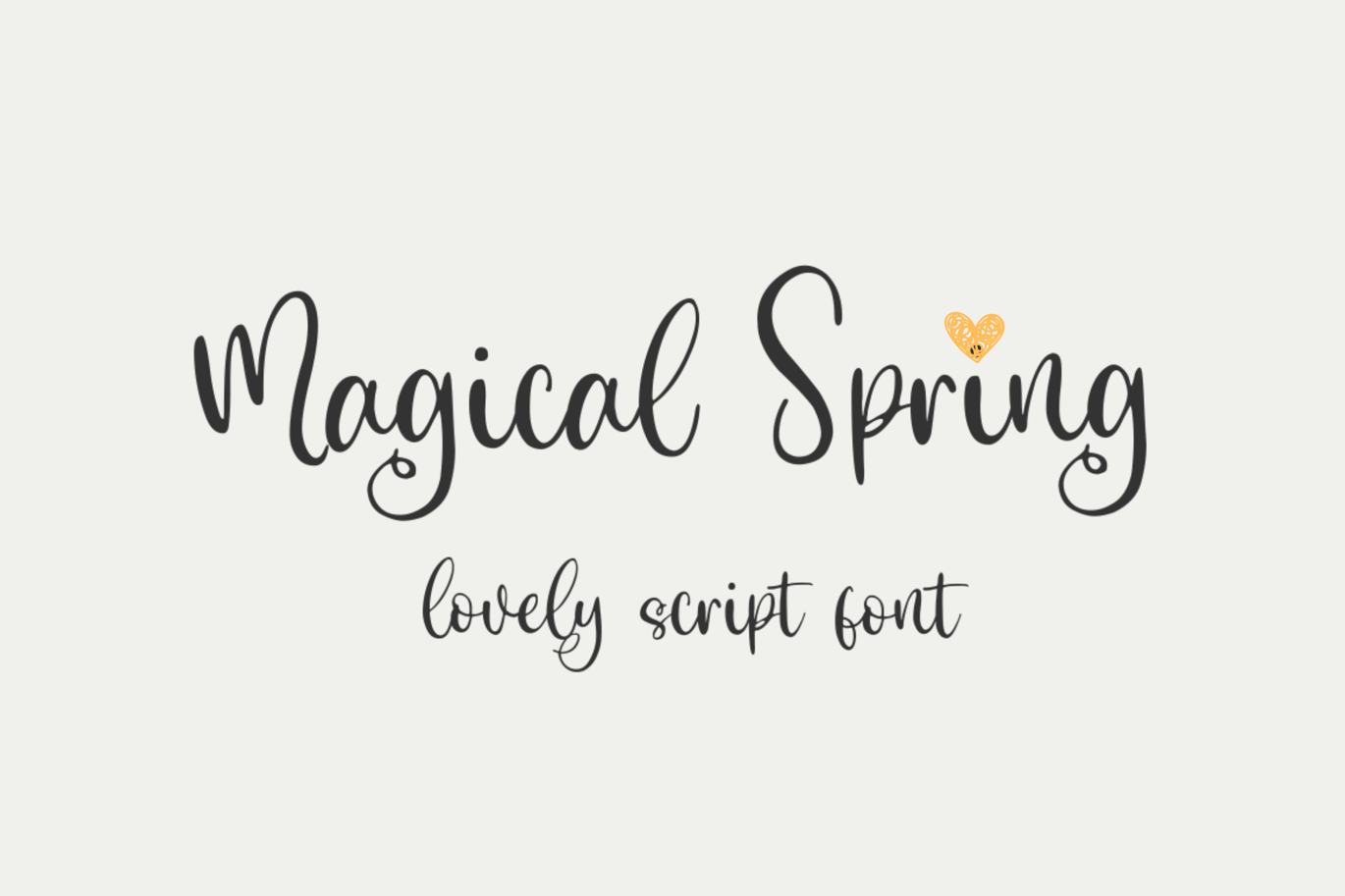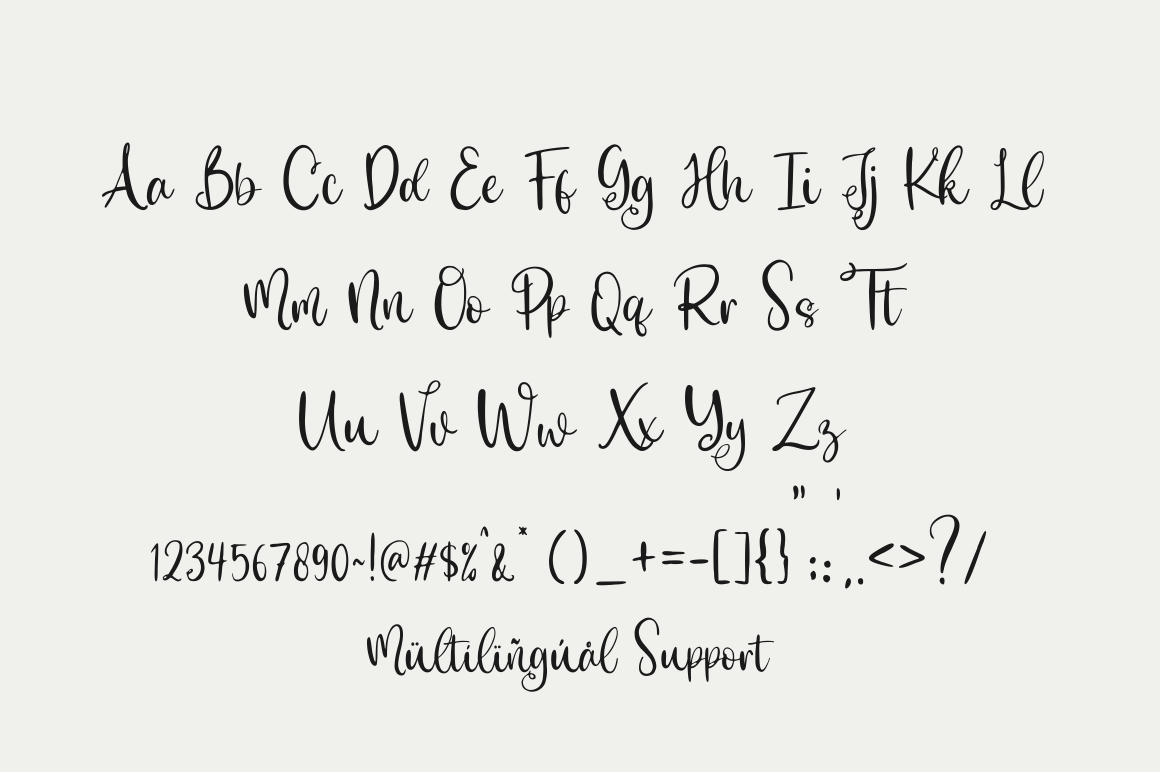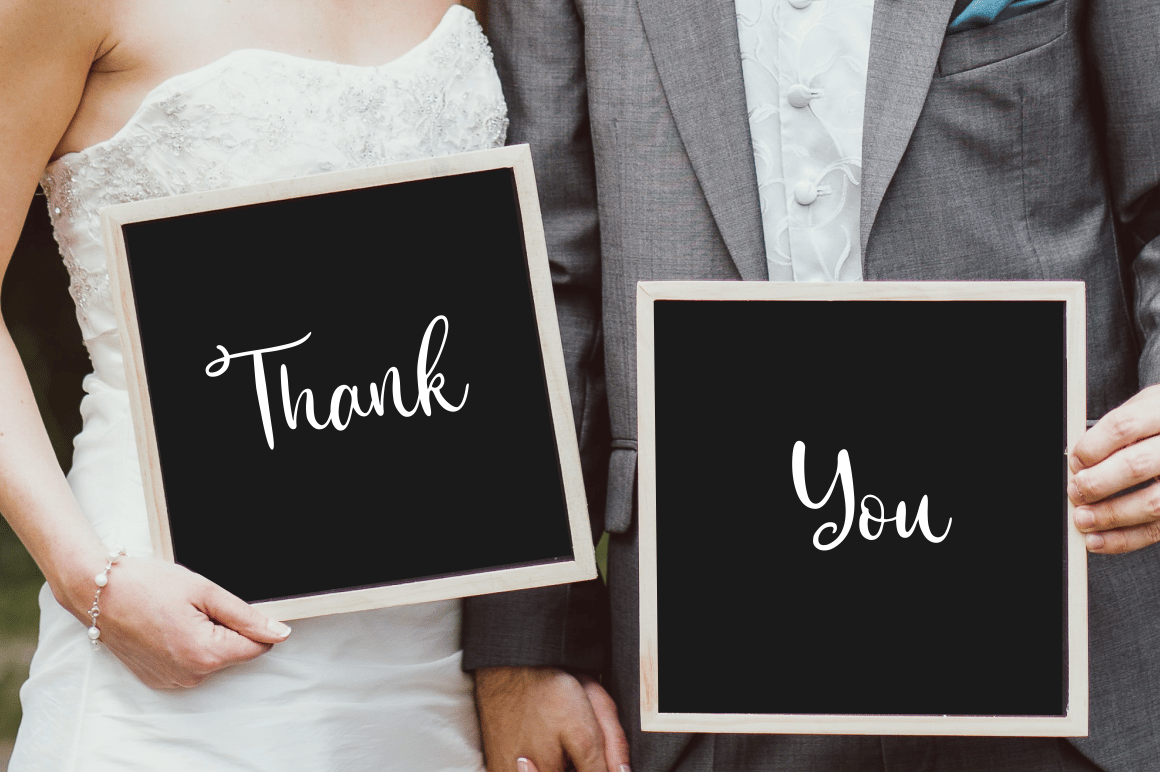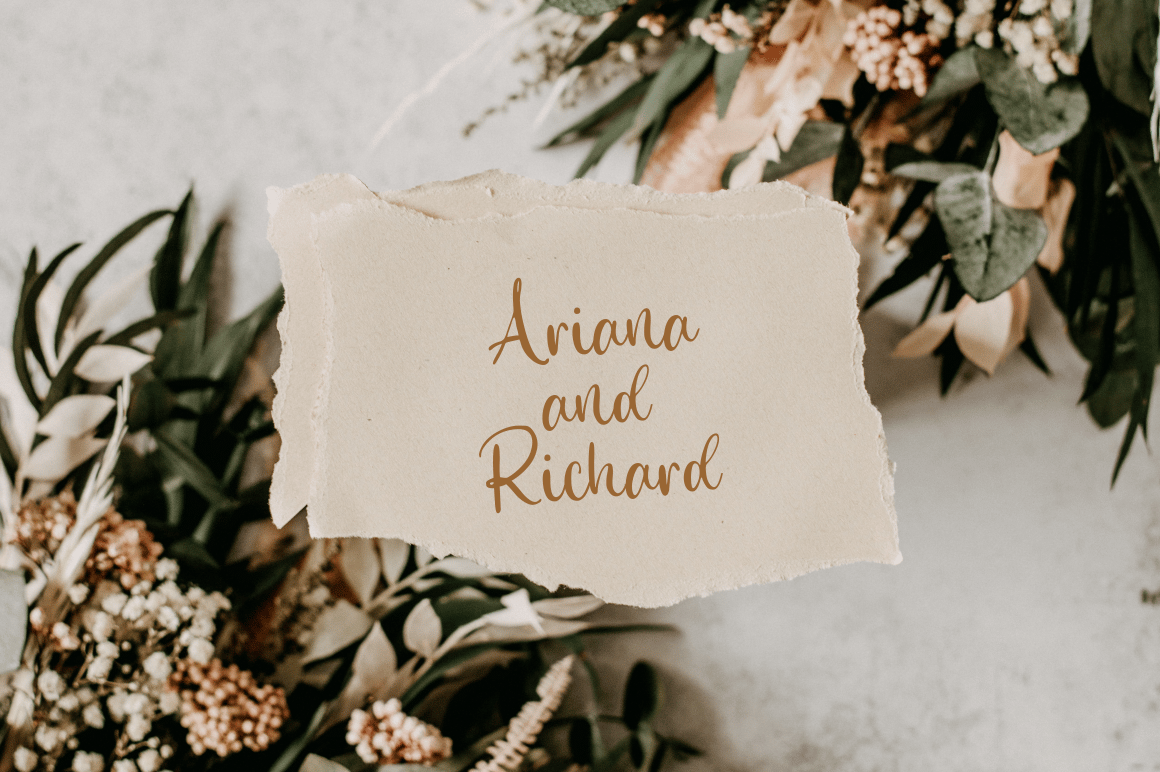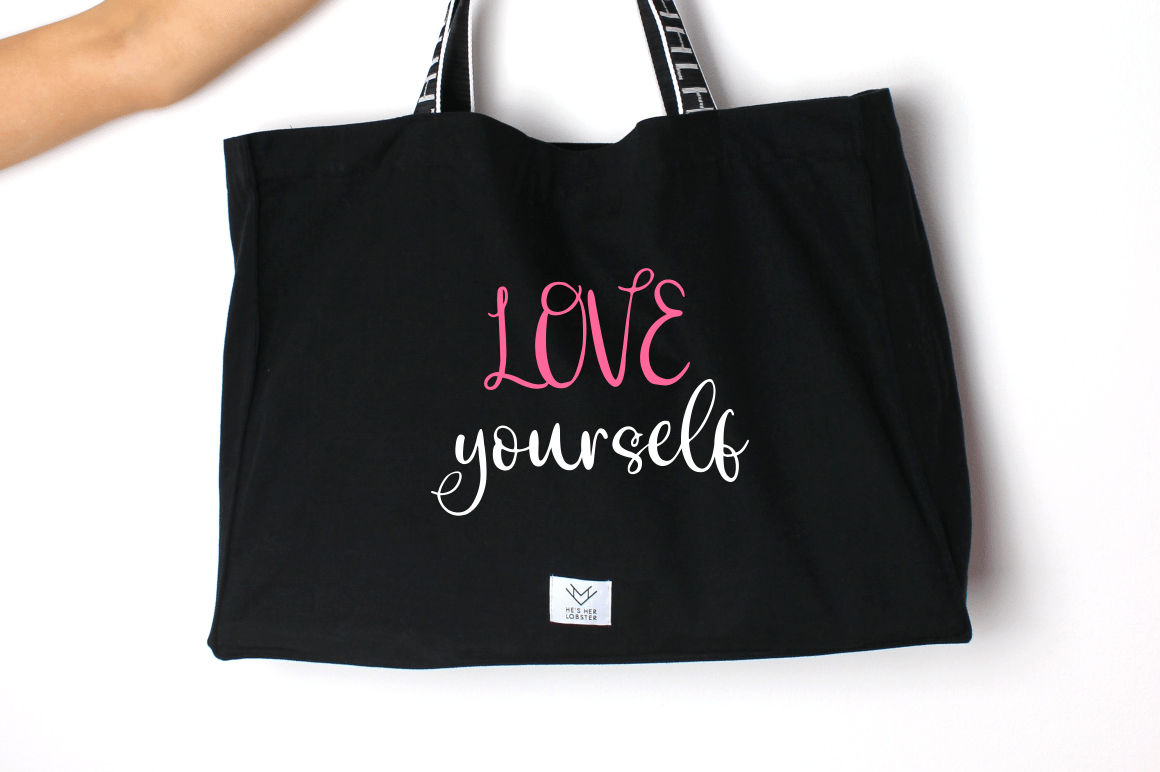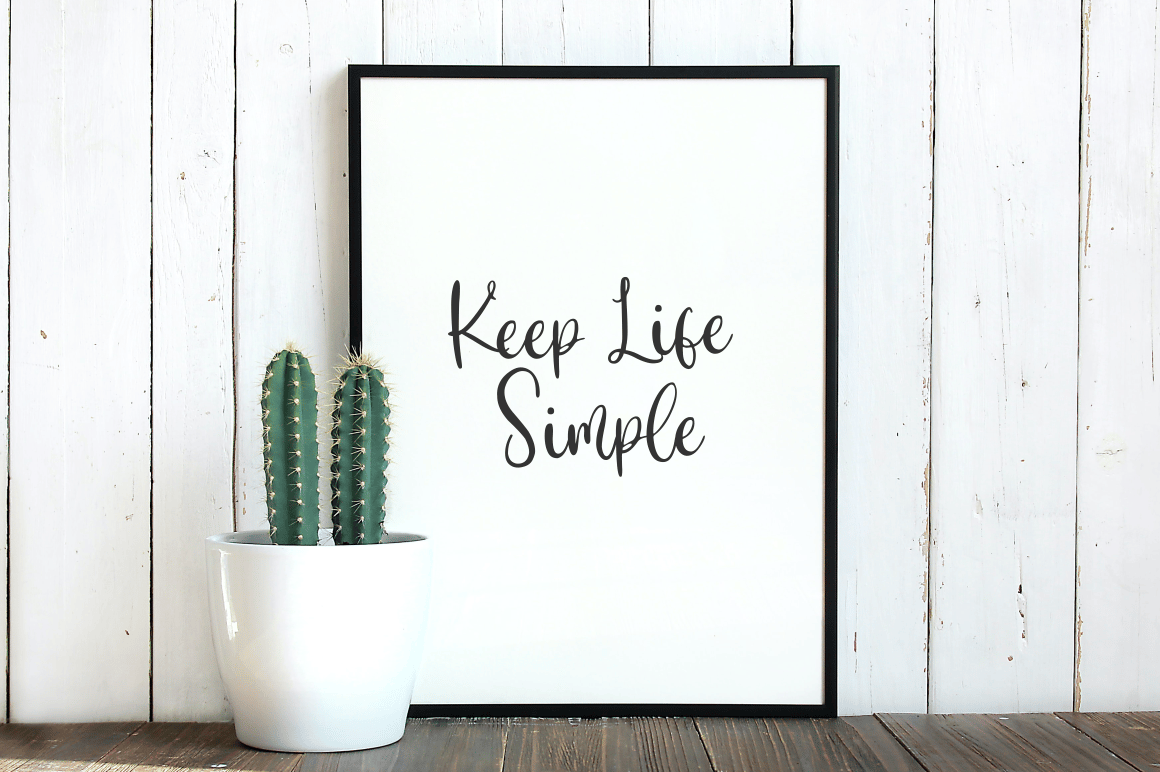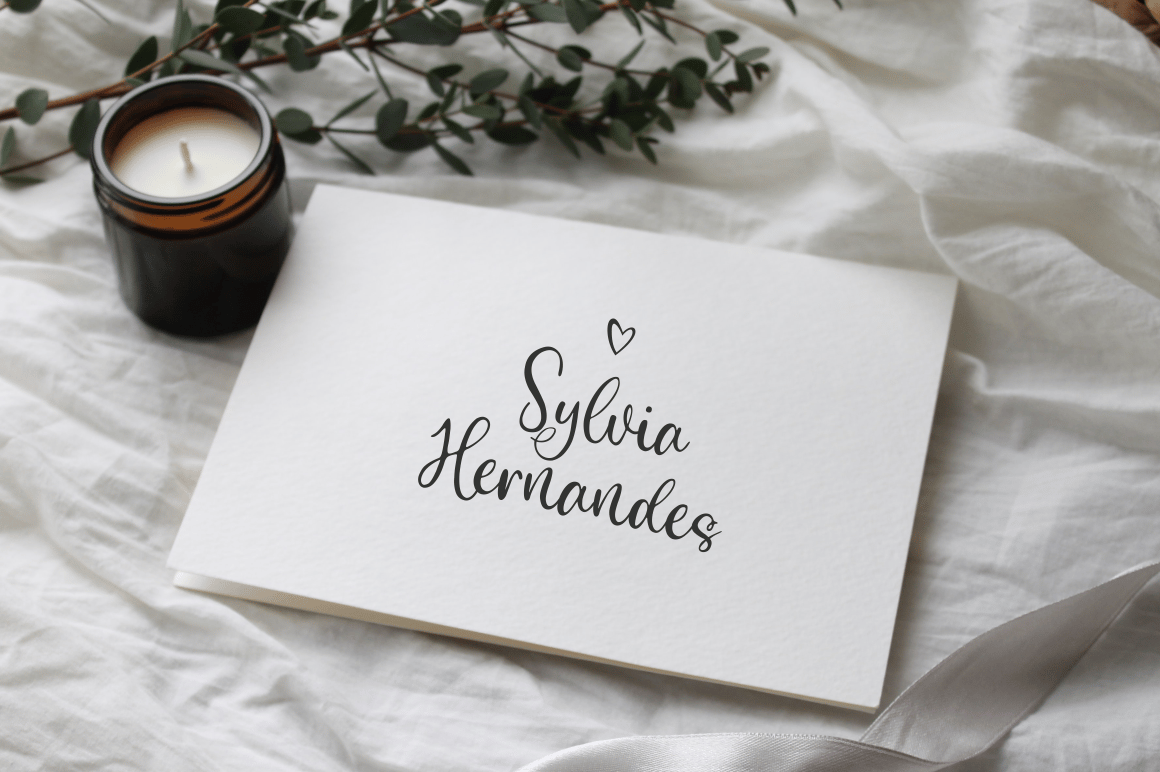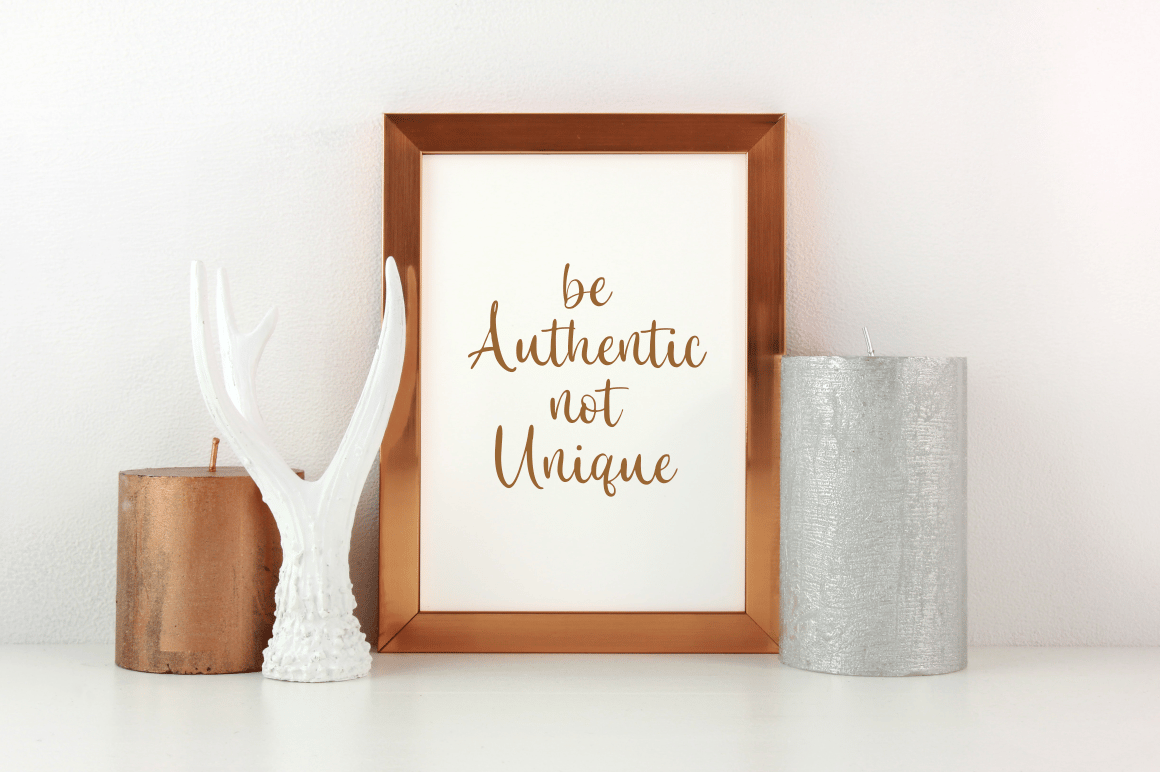
Magical Spring – Lovely Script Font
Magical Spring is a Lovely Script font perfect for crafting, branding, invitation, stationery, wedding designs, social media posts, advertisements, product packaging, product designs, label, photography, watermark, special events, or anything.